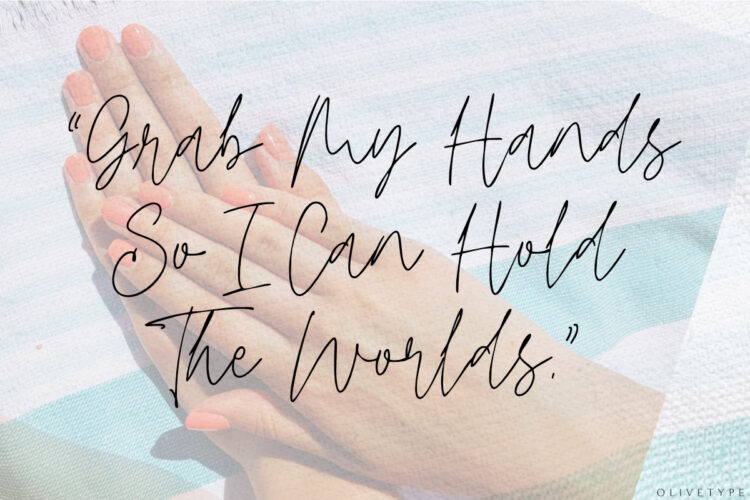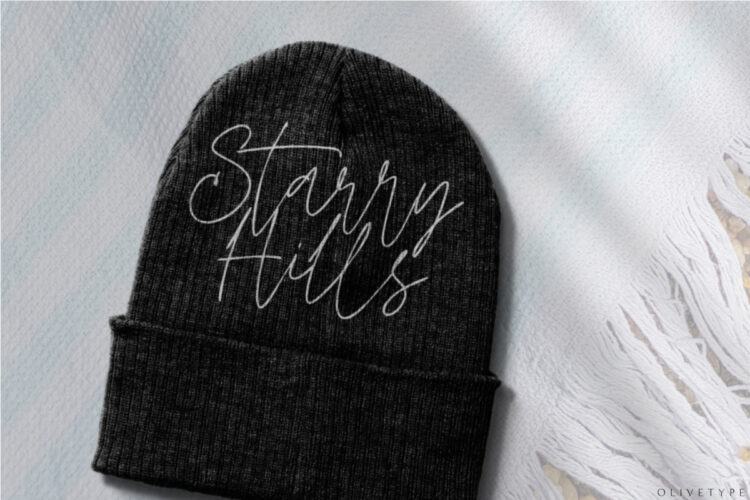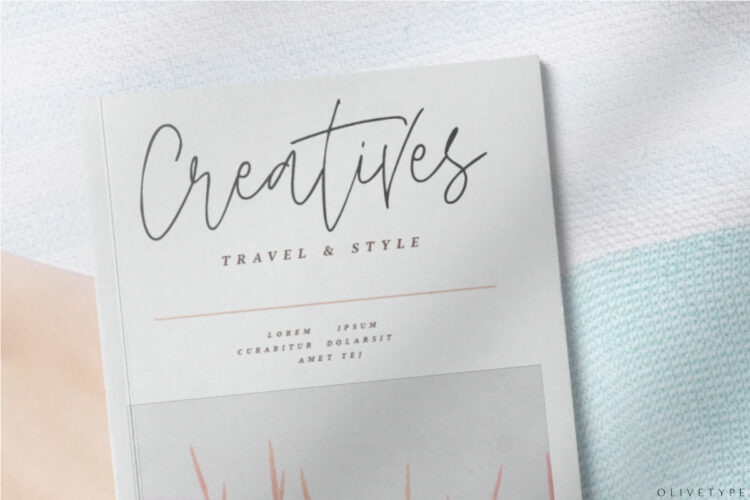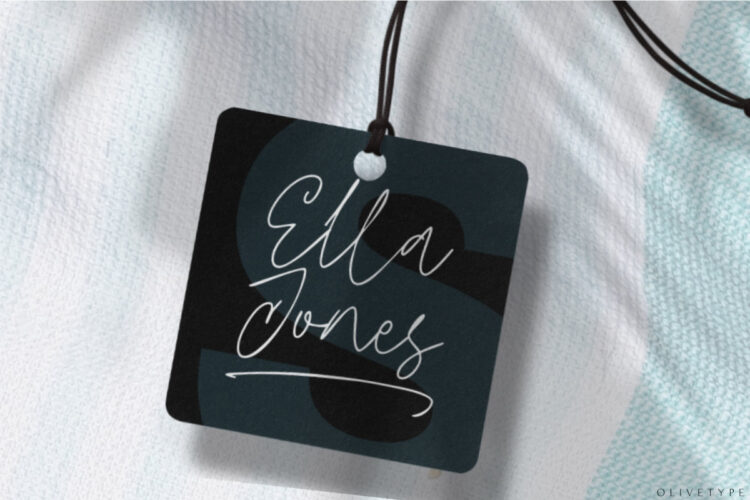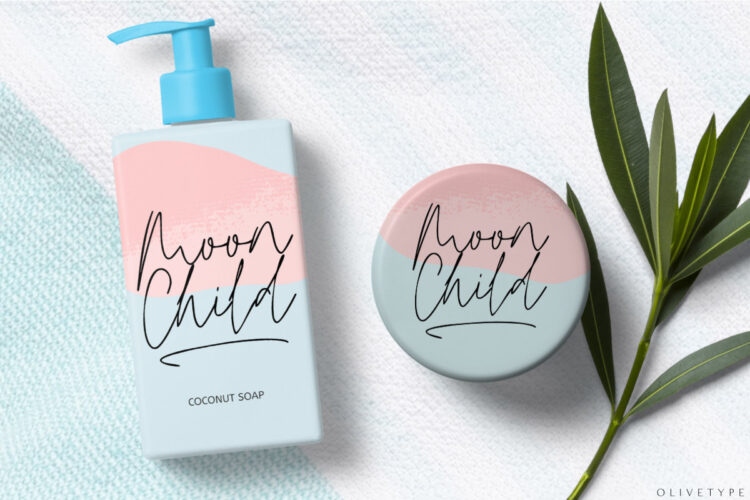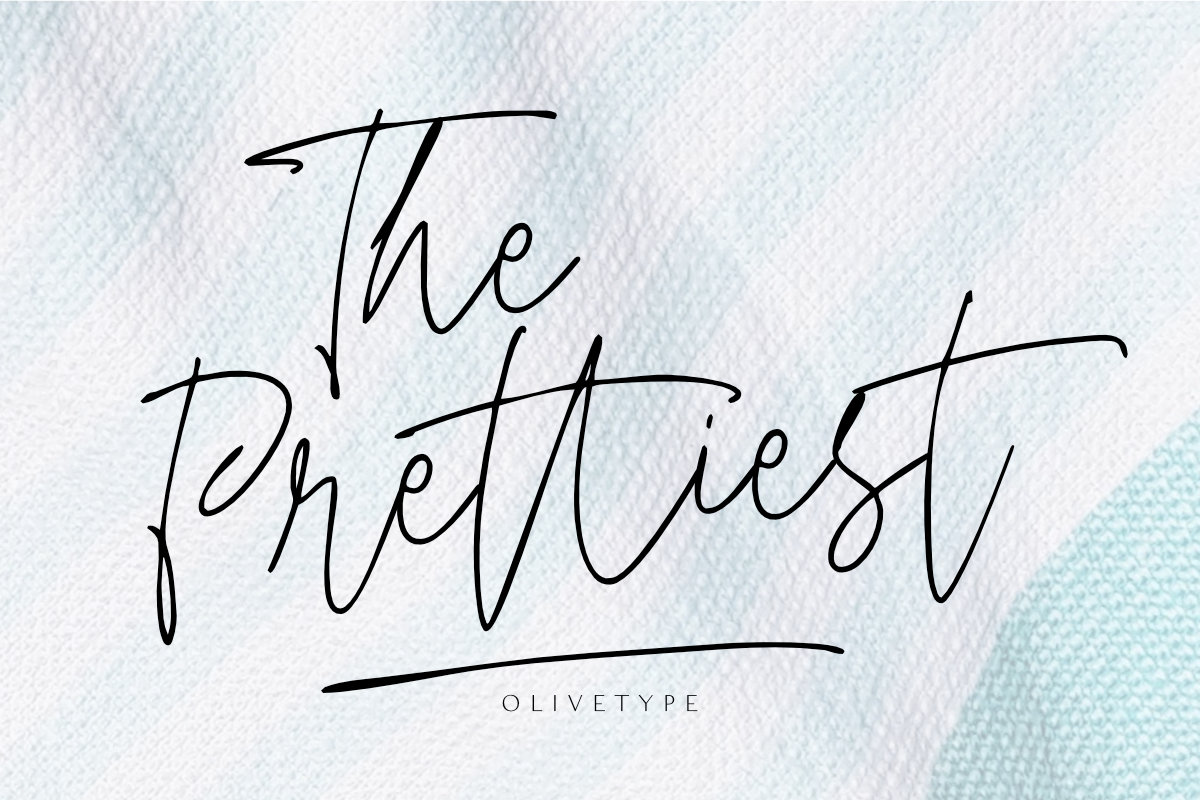
It’s time to give your work a feminine touch with the help of the prettiest font. This modern calligraphy-styled script font will add a pretty, elegant feel to your work with just a few clicks. It’s perfect for logos, product branding, or even just to spice up your headlines.
- Basic Latin Uppercase and Lowercase
- Ligatures